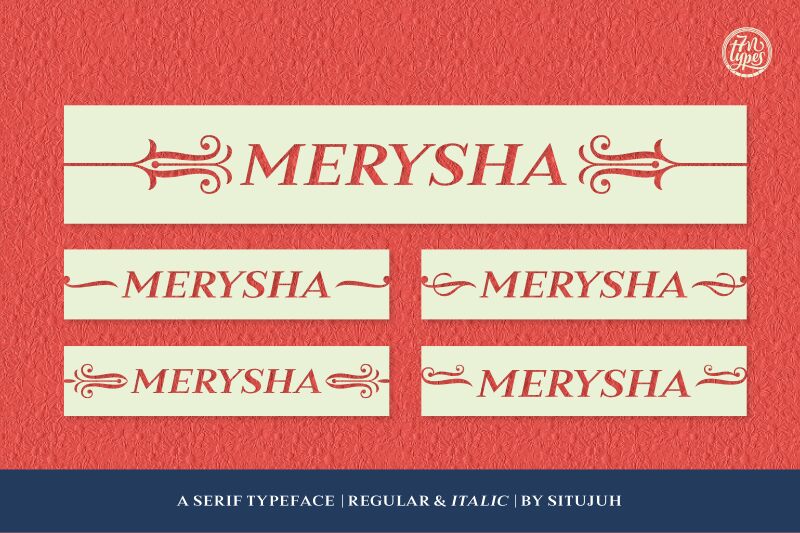
Merysha is a classical looking serif font. It is easy to read and neat. Whats also great, it comes with decorative embellishments that match the font perfectly.
The Merysha is a versatile font that can be used as titles, headlines or as body text.
Merysha